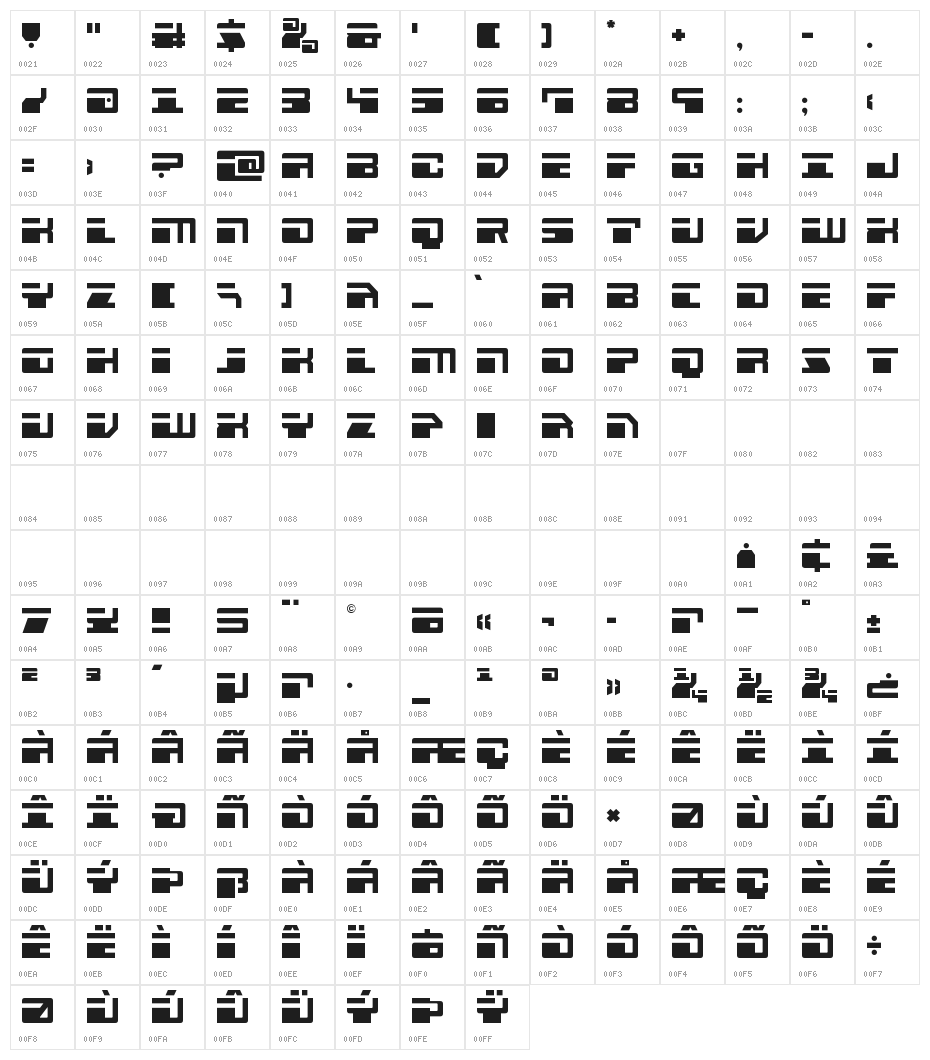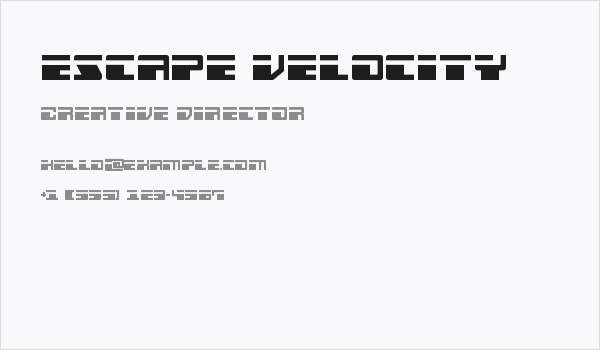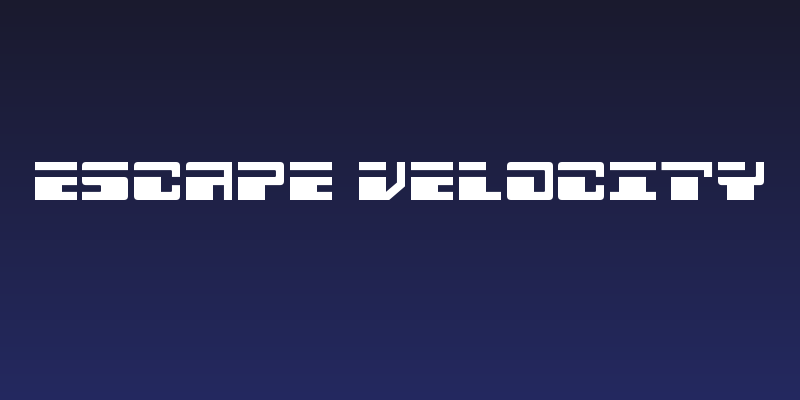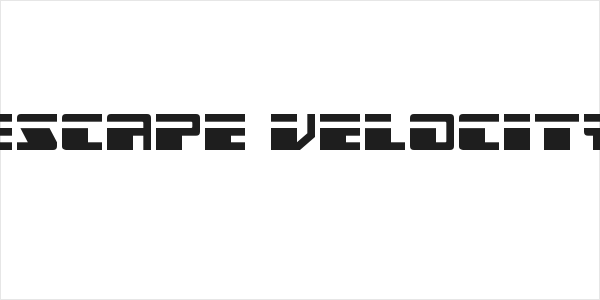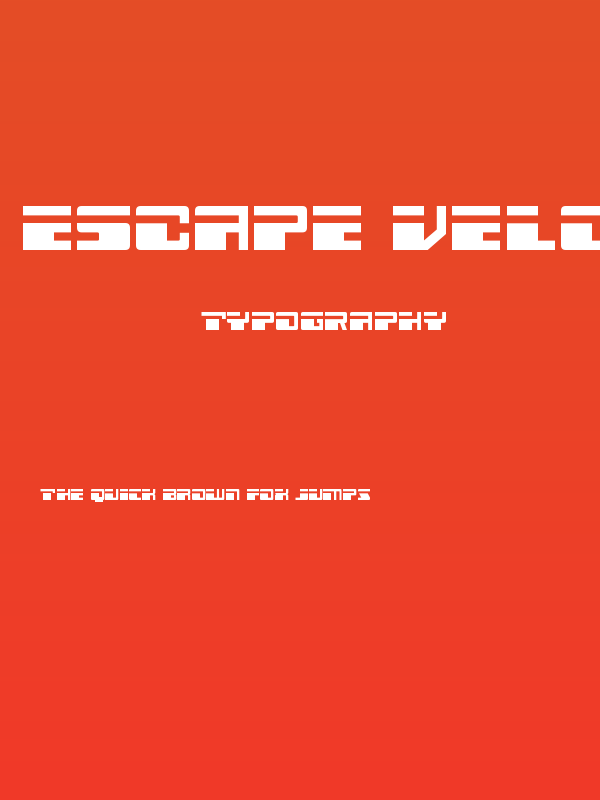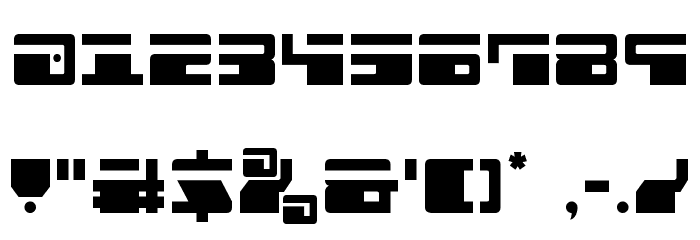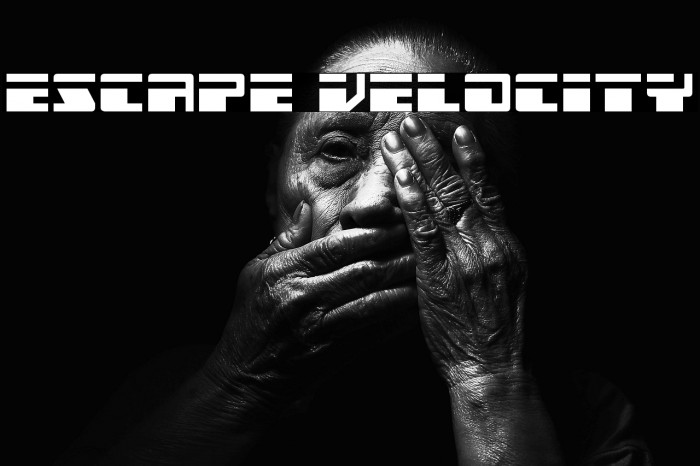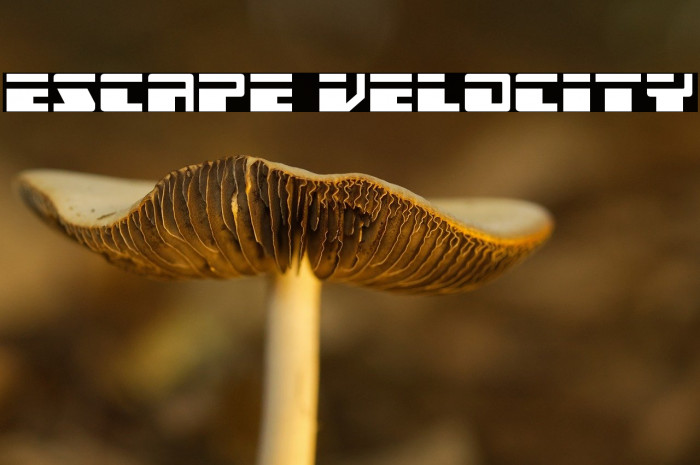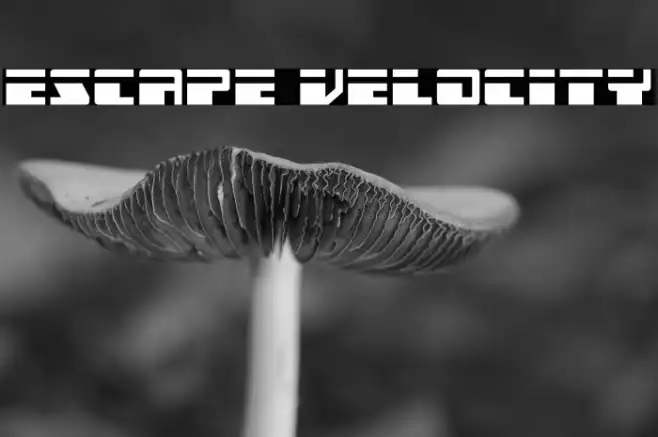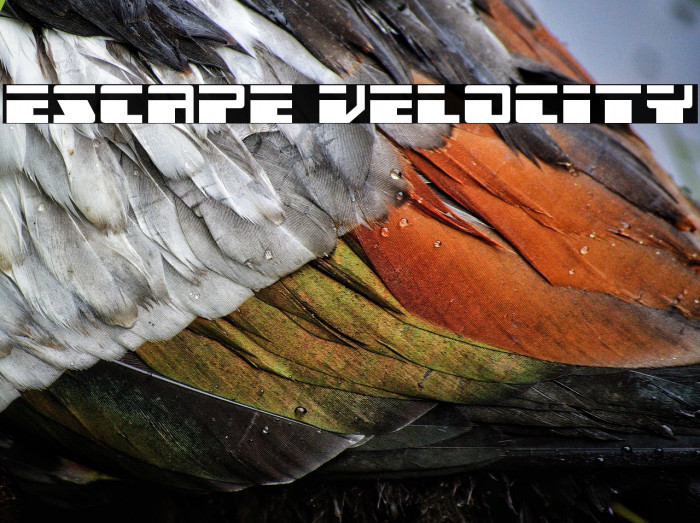
Escape Velocity Font
Escape Velocity Description
This font features a futuristic and geometric design, characterized by bold, block-like letterforms with sharp angles and clean lines. The uppercase and lowercase letters share a consistent style, with a strong emphasis on horizontal and vertical strokes. The numerals and special characters maintain the same aesthetic, ensuring uniformity across all glyphs. The font's design suggests a modern, tech-inspired theme, making it suitable for projects that require a bold and impactful visual presence. Its unique style is both eye-catching and versatile, ideal for creative and innovative applications.
| Proposed Projects | Ideal for sci-fi themed designs, tech branding, video game titles, and futuristic posters. |